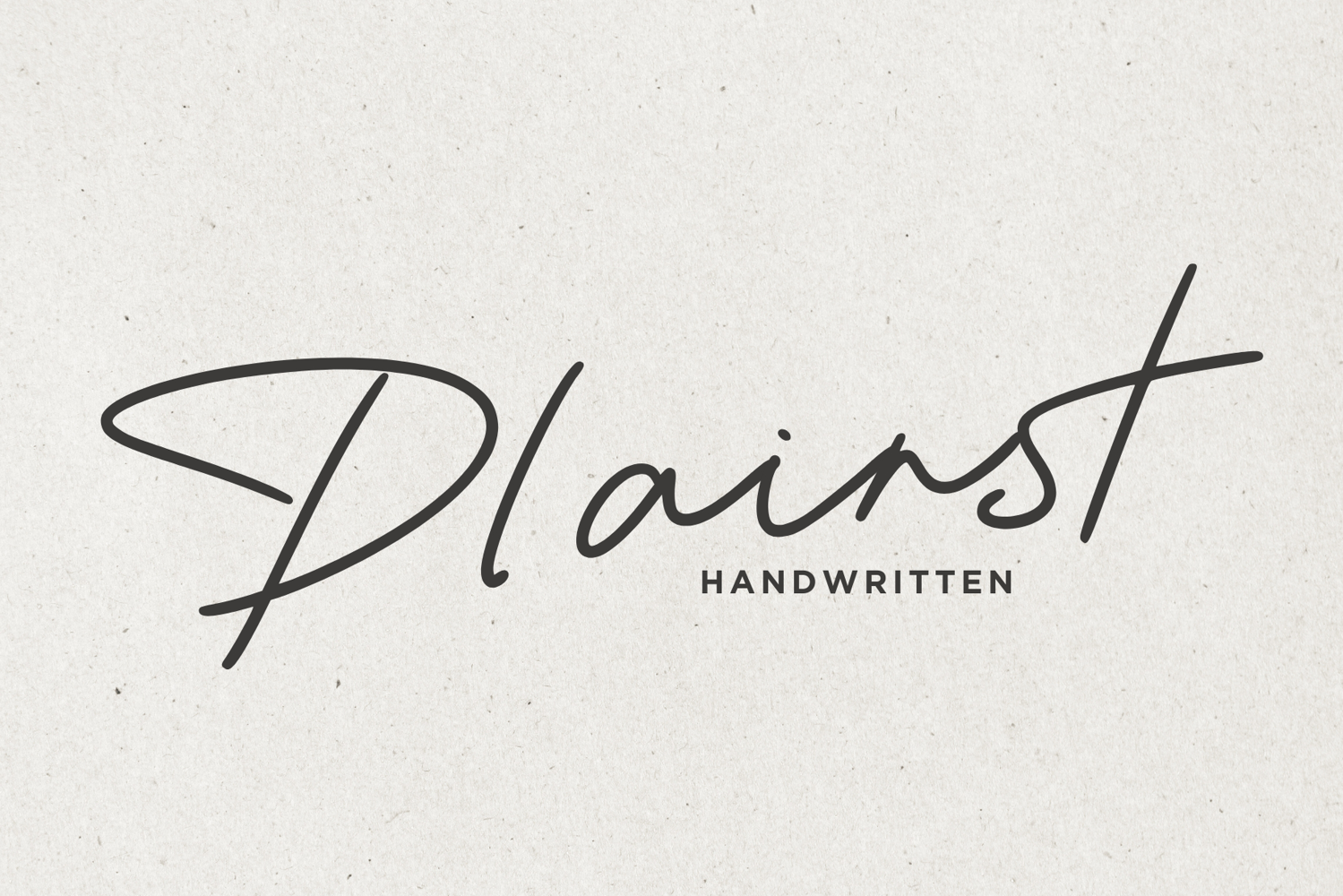
Plainst
Plainst is a clean and minimal monoline handwritten font designed for simplicity and readability.
With smooth strokes and a natural handwritten flow, Plainst feels effortless, modern, and versatile.
This font features special ligatures such as st and sst, giving your text a seamless and natural connection. Perfect for creators who love a neat handwritten look without losing identity.